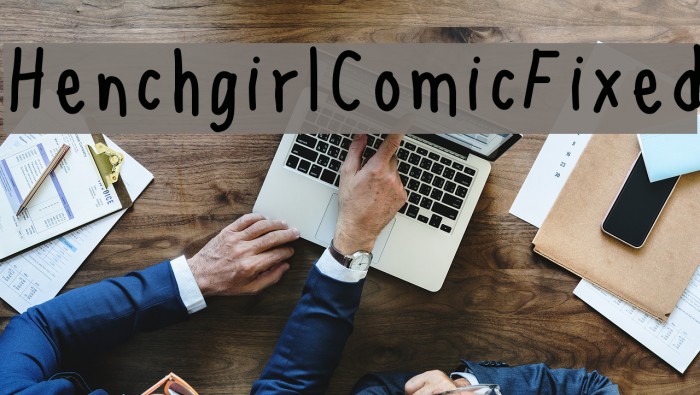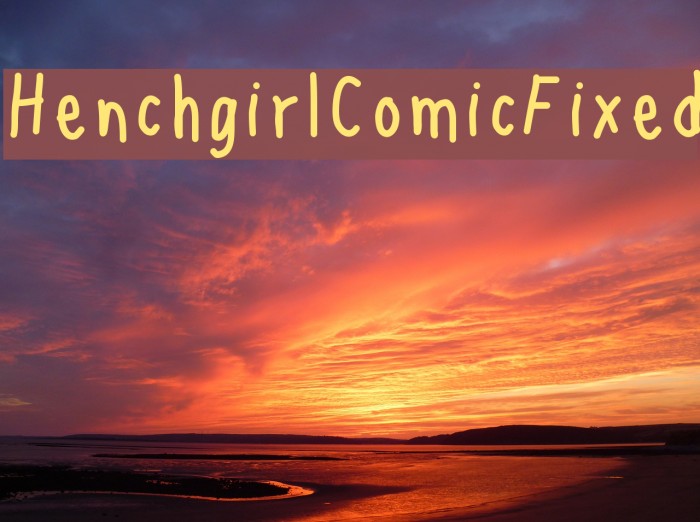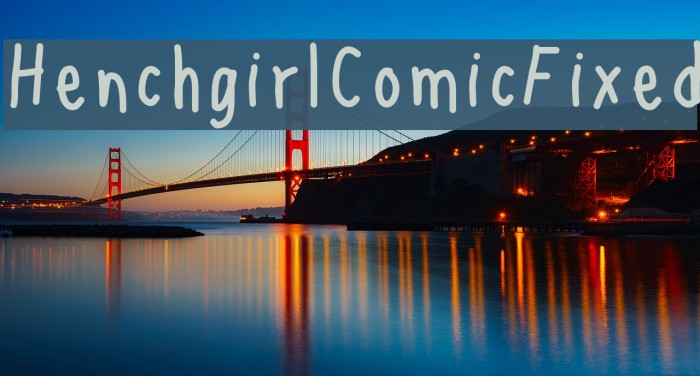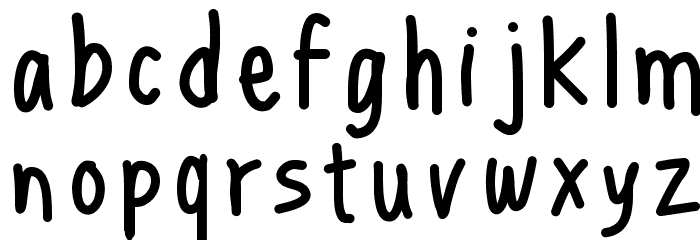
HenchgirlComicFixed Font
This font exhibits a playful and casual handwritten style, characterized by its irregular and slightly whimsical letterforms. The strokes are consistent in thickness, giving it a uniform appearance despite its informal nature. The characters are rounded and have a friendly, approachable feel, making it suitable for projects that require a personal touch. The font includes a full set of uppercase and lowercase letters, numbers, and a variety of special characters, ensuring versatility in its application. Its informal style is perfect for creative projects that aim to convey warmth and friendliness.
• Proposed Projects: Ideal for comic books, children's books, greeting cards, and informal branding.
• Category: Handwritten
• Contrast: Low
• Overall Style: Casual
• Use Case: Headlines, Informal text, Creative projects